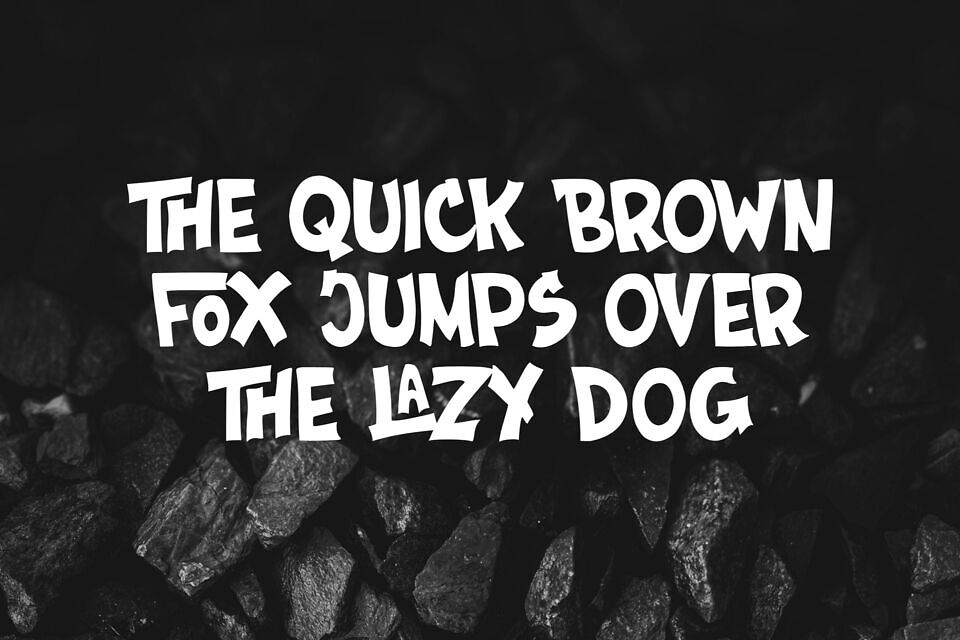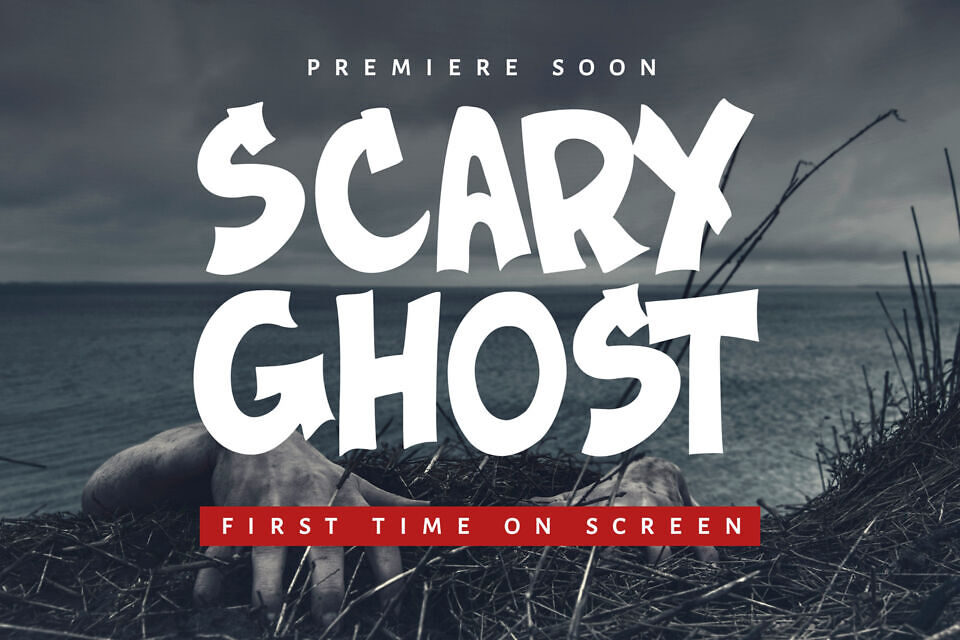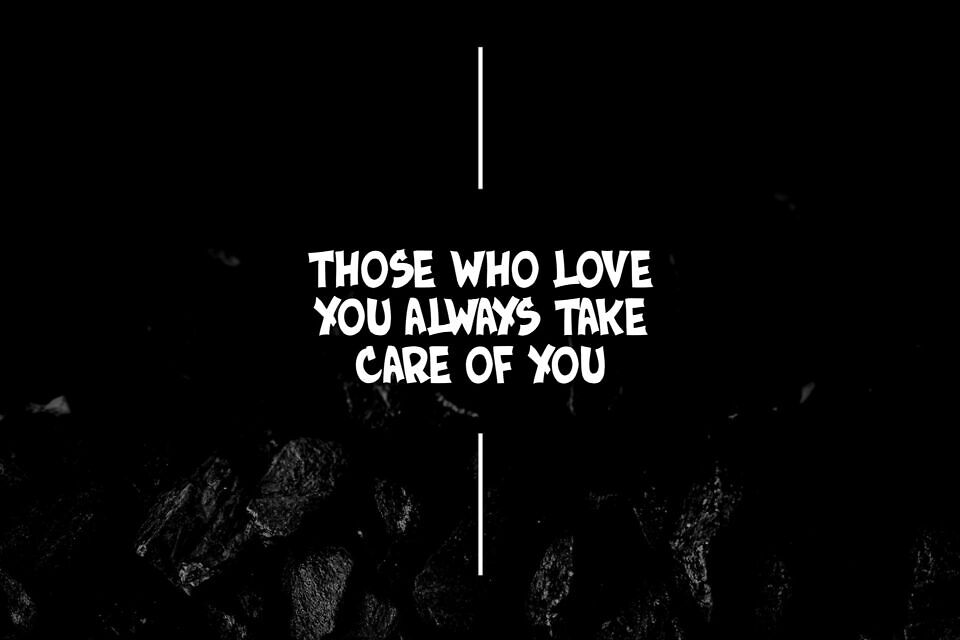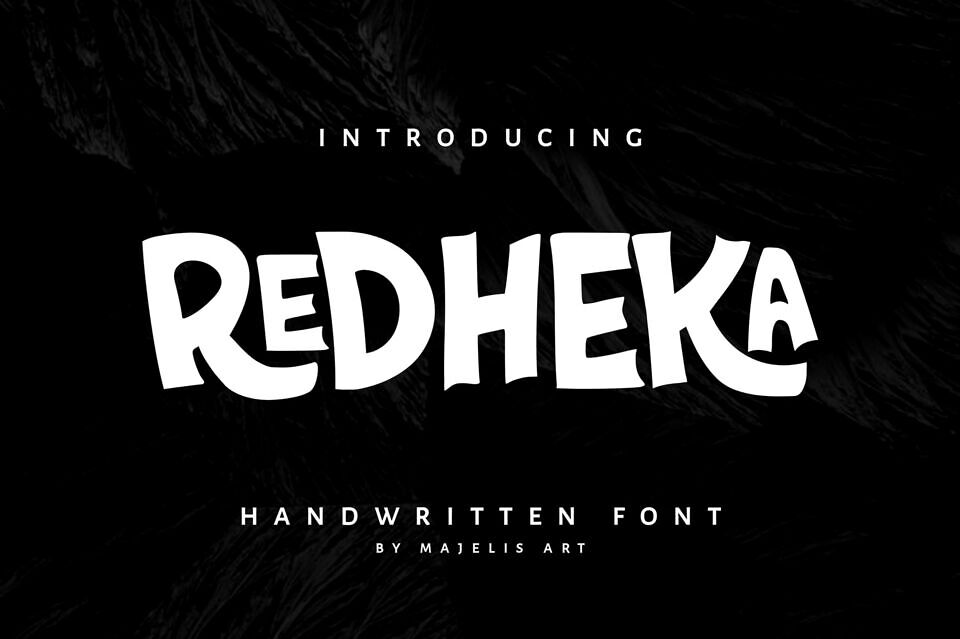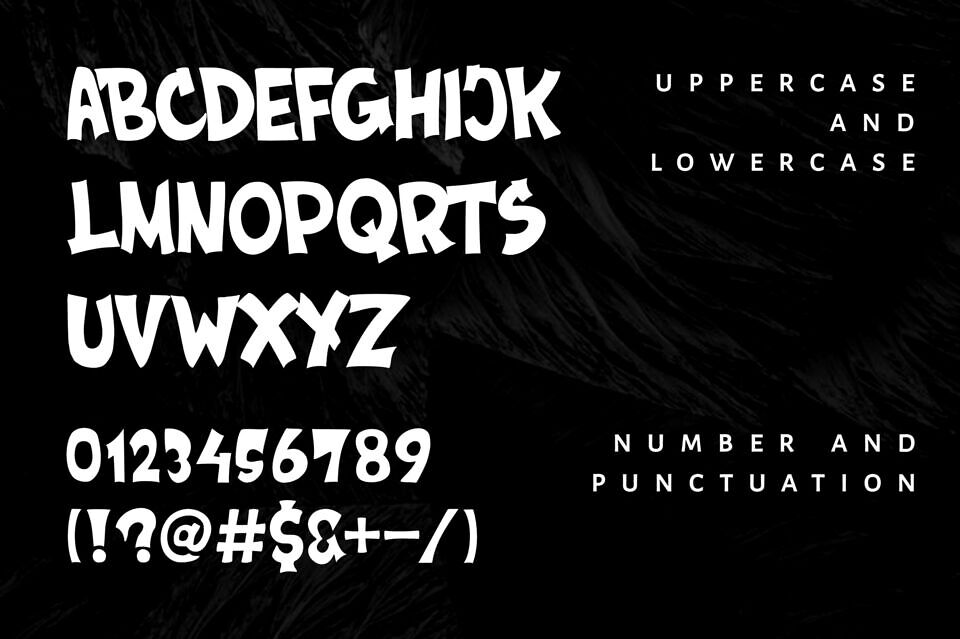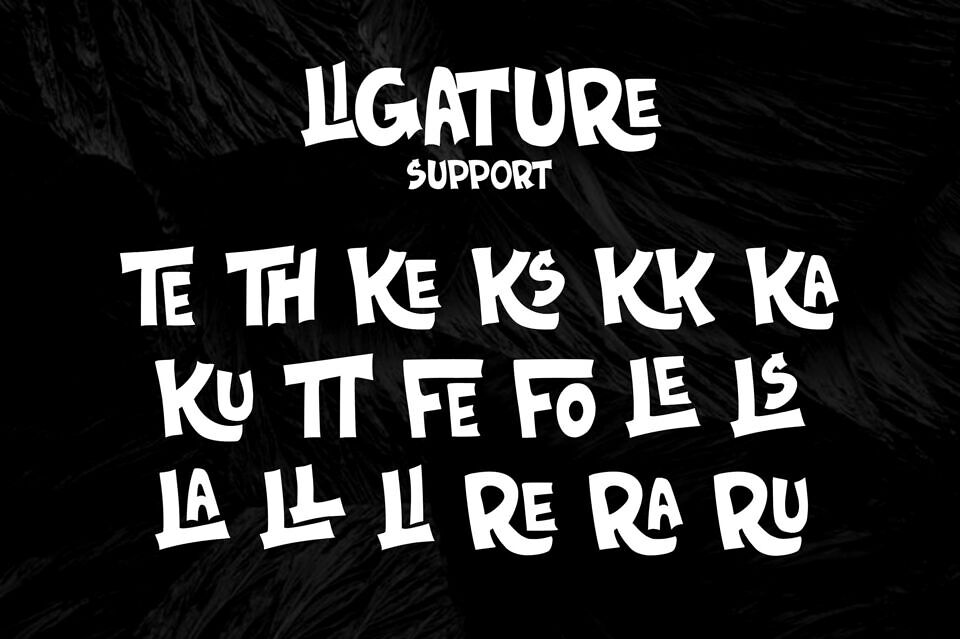
REDHEKA is a handwritten font that we write with very thick thickness. REDHEKA has curves that suit design enthusiasts.
This font is suitable for use in electronic media, poster design, logos for businesses, and the most suitable of all is use in a horror and scary themed film.